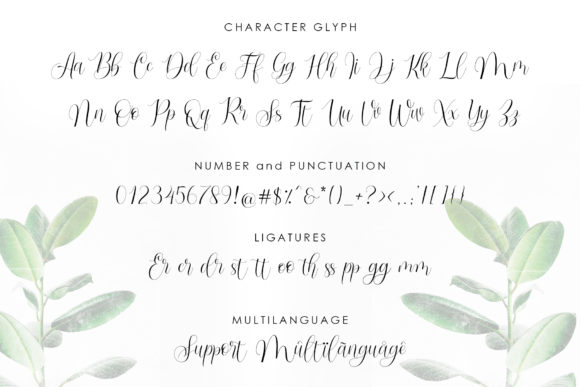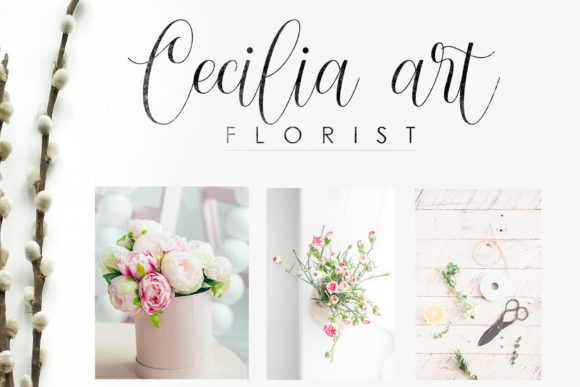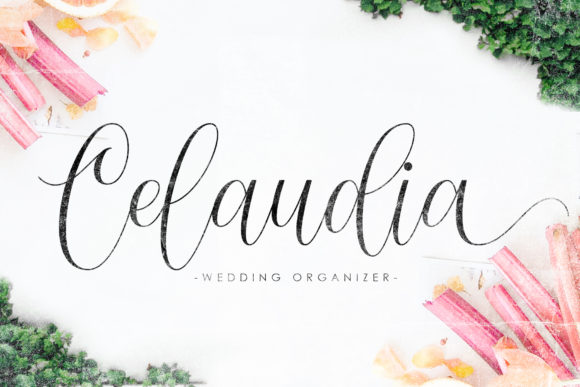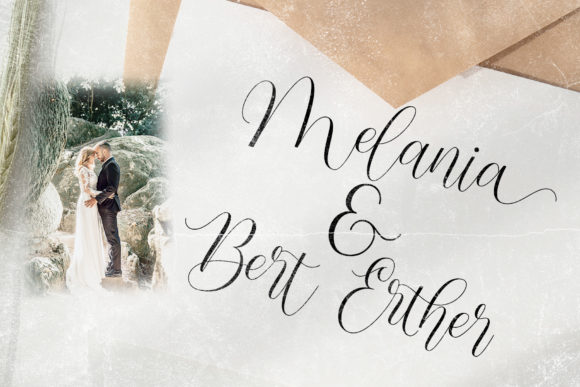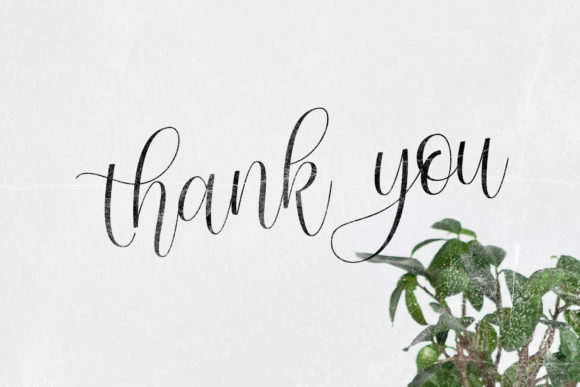
HomeScript FontsBarbara Blast Font Script Fonts Barbara Blast Font FacebookXPinterestWhatsApp Barbara Blast Font Poster 2 Barbara Blast Font Poster 3 Barbara Blast Font Poster 4 Barbara Blast Font Poster 5 Barbara Blast Font Poster 6 About Barbara Blast Font Barbara Blast is a stunning and bold handwritten font with a unique twist. Fall in love with its bold swashes! DOWNLOAD NOW People also explored Maderon Font Wedding Day Monogram Font Carter Font Robeton Font Januari Font Omalline Font Butterie Font Blankenship Font Barbie Font 300 0 TagsBarbara Blast Font Previous articleJandle FontNext articleHosbela Script Font LEAVE A REPLY Cancel reply Comment: Please enter your comment! Name:* Please enter your name here Email:* You have entered an incorrect email address! Please enter your email address here Website: Save my name, email, and website in this browser for the next time I comment. Personal Use Free Pumpkin Type Halloween Font Personal Use Free Read more about this font Anggraini Personal Use Free Read more about this font Twisty Girlz Personal Use Free Read more about this font My Ugly Handwritting Personal Use Free Read more about this font BLOG Elegant Wedding Invitation Fonts – Handwritten & Script Fonts Elegant Wedding Invitation Fonts Your wedding day is one of the most important moments of your life, and every detail matters—including your invitation design. Our... How to Cut Any Font on Cricut: Convert a Font to SVG (Free) 5 Fonts That Will Dominate Design Trends in 2026 Using Fonts in Digital Marketing: Tips to Strengthen Your Brand Identity